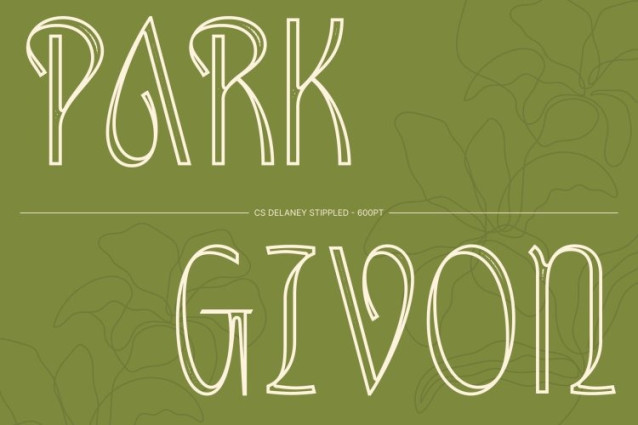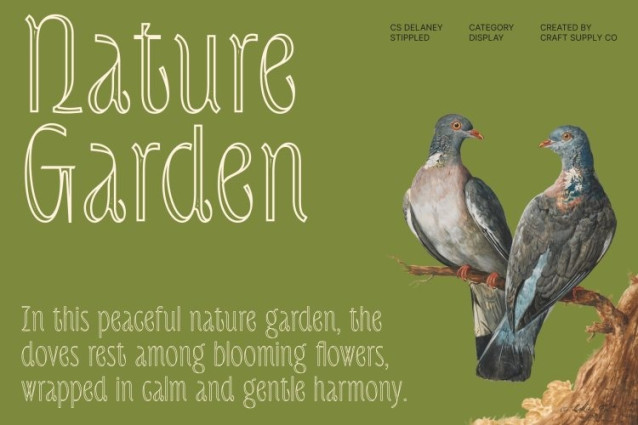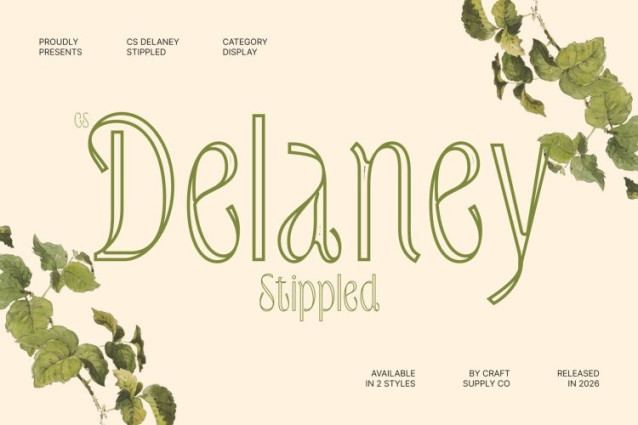
CS Delaney Stippled Font
CS Delaney Stippled Font – This is a modern sans-serif font defined by its sleek, minimalist structure and refined proportions. Its clean lines and balanced geometry create a calm and polished aesthetic that feels contemporary and sophisticated. Enhanced with a stippled texture, the letterforms gain a subtle dotted surface that introduces depth and a handcrafted visual nuance, adding character while preserving the font’s modern clarity.
Sophisticated Simplicity with Artistic Detail
The elegance of this font lies in its restrained design. Its smooth curves and carefully balanced spacing create a harmonious and visually pleasing rhythm. The stippled effect gently enriches the surfaces of the letters, adding texture that enhances the visual interest without compromising the font’s clean and professional appearance.
Modern Elegance with Timeless Appeal
Blending minimalist design with refined texture, this font conveys quiet luxury and sophistication. Its contemporary aesthetic feels polished and versatile, making it suitable for projects that aim to communicate elegance, clarity, and modern style.
Perfect for Premium and Contemporary Design
This is ideal for luxury branding, editorial layouts, product packaging, and digital design. By combining sleek modern forms with subtle stippled detailing, the font delivers a refined typographic voice that enhances high-end visual identities with sophistication and understated elegance.